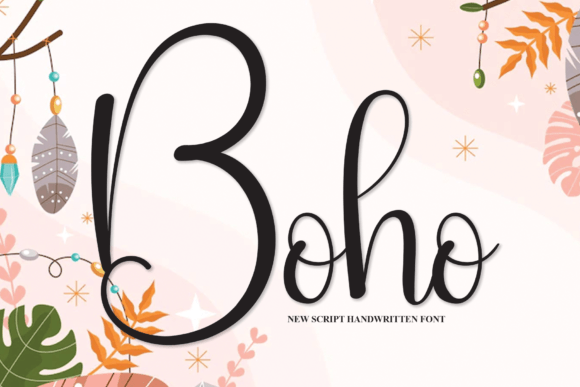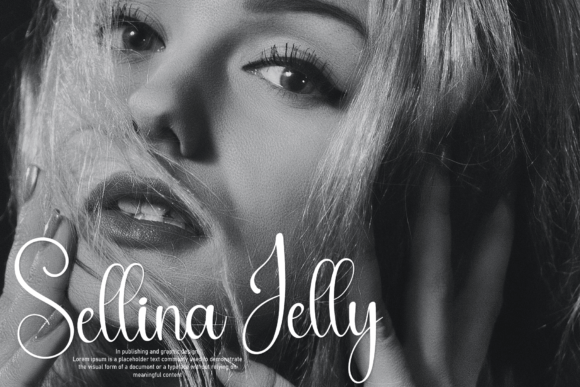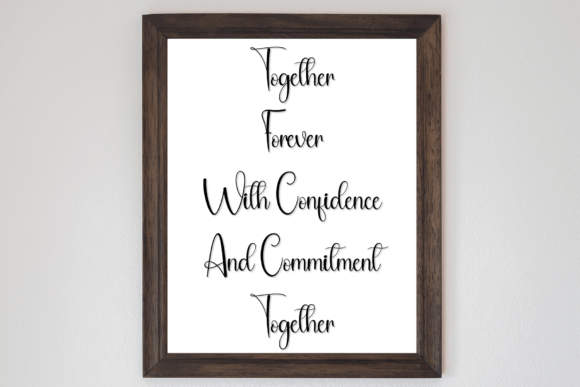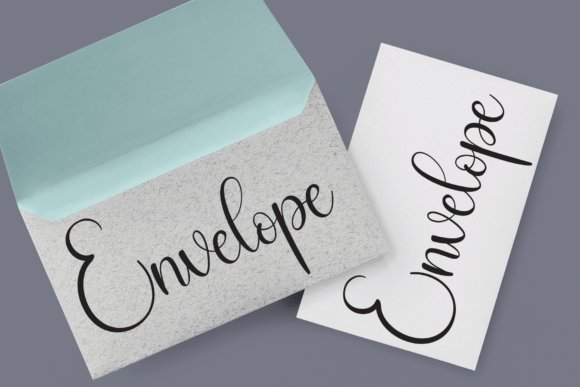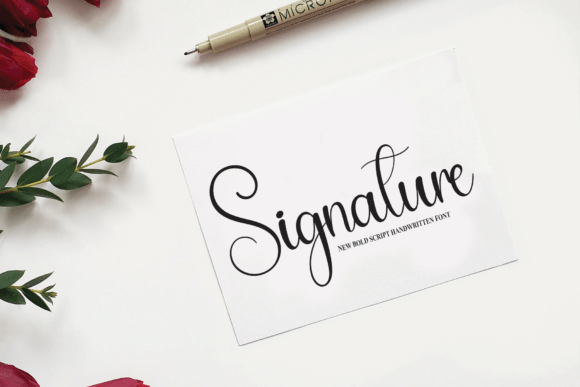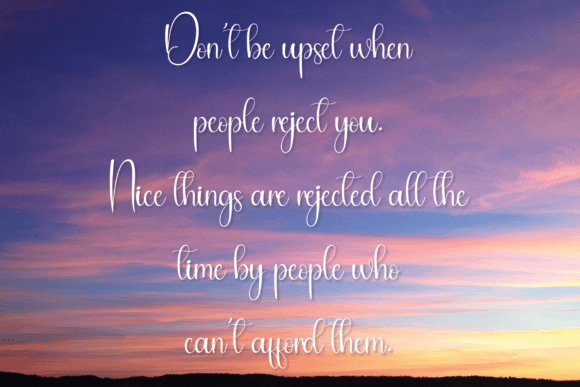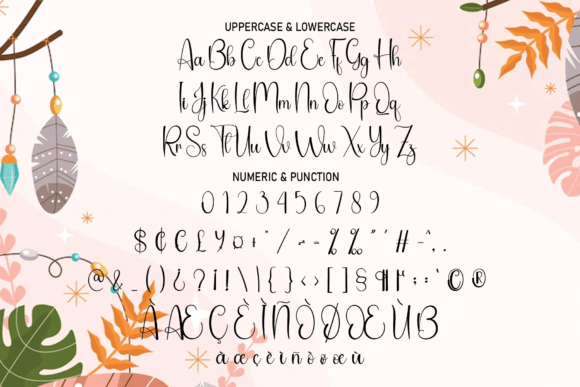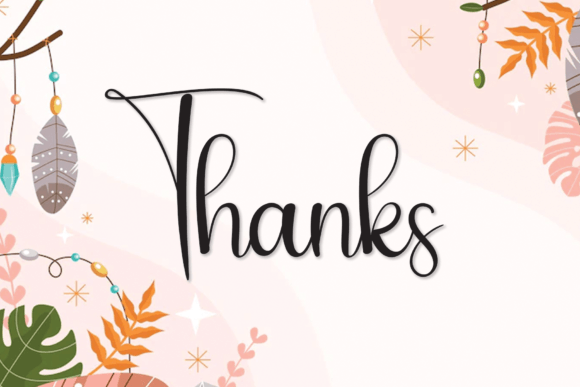
Boho Font
A Sleek and Elegant Handwritten Font
The Boho Font is a sleek and elegant handwritten typeface that brings a sophisticated, personalized touch to any design project. Its fluid design and refined strokes make it ideal for a wide range of creative applications. Whether you’re working on wedding invitations, social media logos, advertisements, or product packaging, the Boho Font adds a charming, authentic handwritten feel to your work, giving it a distinct, high-end look.
Perfect for Wedding Invitations and Special Occasions
The Boho Font is perfect for wedding invitations and other special occasion designs. Whether you’re designing save-the-dates, invitations, or thank you cards, this font brings a romantic and elegant flair to your stationery. Its sleek cursive strokes and refined style ensure your designs feel both personalized and sophisticated, making it a great choice for weddings and celebrations.
Ideal for Social Media Logos and Branding
For social media logos and branding, the Boho Font offers a stylish, elegant design that works well for personal brands, business logos, and Instagram posts. Its handwritten style gives your brand a unique and authentic feel, helping your business stand out in a crowded digital space. Whether you’re working on a brand identity or a logo, this font adds a charming and approachable touch to your creative work.
Great for Advertisements and Product Packaging
For advertisements and product packaging, the Boho Font brings a refined yet personalized touch to your marketing materials. Whether you’re designing product labels, flyers, or posters, this font ensures your text stands out with a sophisticated handwritten look. Its sleek design makes it a perfect choice for premium products, giving your designs an elevated, high-end appearance.
Ideal for Photography and Watermarks
The Boho Font is perfect for photography and watermarks. Whether you’re adding a photographer’s signature or custom watermark to your images, this font provides a subtle yet distinctive touch to your photos. Its elegant design makes it ideal for photo albums, portfolios, and watermarks, ensuring your branding is both professional and elegant.
Elegant, Legible, and Versatile
Despite its sleek handwritten style, the Boho Font is legible and versatile. Its well-spaced letters and clear structure ensure that your text remains easy to read, even in smaller sizes or for longer passages. Whether you’re working on headlines, subheadings, or body text, this font strikes the perfect balance between style and clarity, making it suitable for a wide range of creative applications.
Add Elegance and Style to Your Designs with Boho Font
If you’re looking for a sleek, elegant, and handwritten font to enhance your designs, the Boho Font is the perfect choice. Whether you’re working on wedding invitations, logos, advertisements, or product packaging, this font adds a personalized, stylish touch to your work. Let the Boho Font bring charm and elegance to your creative projects and help them stand out with sophistication.